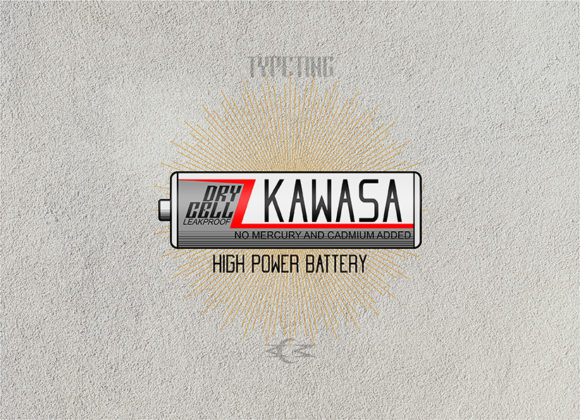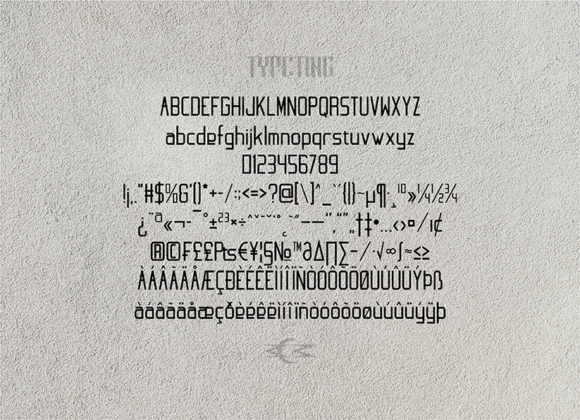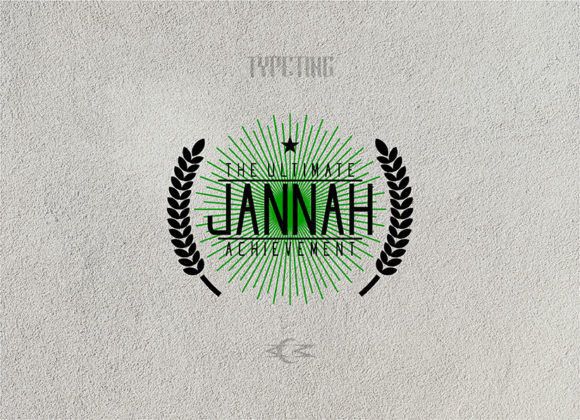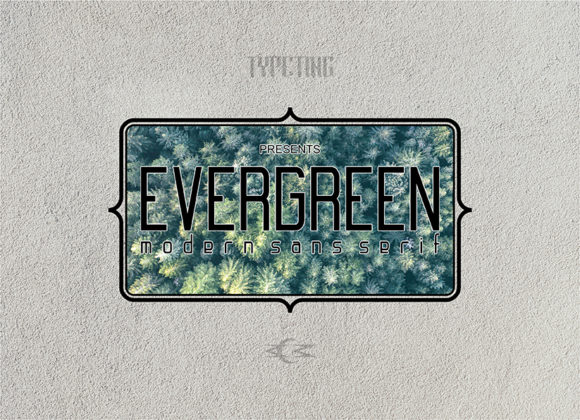
Introducing Evergreen Font: A Modern Sans Serif for Creative Projects
Are you on the hunt for a versatile font that can elevate your design projects? Look no further than Evergreen Font, a modern sans serif font with a simple yet sophisticated feel. This clean and elegant font is perfect for a wide range of applications, from branding and invitations to titles, books, advertising, magazines, and more.
What Makes Evergreen Font Stand Out?
Evergreen Font boasts a unique combination of modernity and simplicity, making it an excellent choice for designers and crafters seeking a font that can convey a sense of professionalism and style. Its sans serif design ensures that your text remains clear and legible, even at smaller font sizes.
Key Features of Evergreen Font
• Modern Sans Serif Design: Evergreen Font features a sleek and contemporary sans serif design that is perfect for projects that require a clean and minimalist aesthetic.
• Simple yet Elegant: The font’s simple design belies its elegance, making it suitable for high-end branding, luxury invitations, and other premium applications.
• High Versatility: Evergreen Font can be used for a wide range of projects, including branding, invitations, name cards, titles, books, advertising, magazines, and more.
• Excellent Legibility: The font’s clear and legible design ensures that your text remains easy to read, even at smaller font sizes.
Use Cases for Evergreen Font
Evergreen Font is an incredibly versatile font that can be used for various design projects. Here are some examples of how you can utilize this font:
• Branding: Create a professional and modern brand identity with Evergreen Font, perfect for logos, business cards, and letterheads.
• Invitations: Use Evergreen Font to create elegant and sophisticated invitations for weddings, parties, and other special events.
• Book Titles: Add a touch of modernity to your book titles with Evergreen Font, perfect for fiction, non-fiction, and children’s books.
• Advertising: Create eye-catching advertisements with Evergreen Font, suitable for print, digital, and social media campaigns.
• Magazines: Use Evergreen Font for magazine titles, headings, and body text to create a clean and modern layout.
Why Choose Evergreen Font?
With so many fonts available, why should you choose Evergreen Font for your design projects? Here are a few compelling reasons:
• Unique Design: Evergreen Font offers a unique and distinctive design that sets it apart from other sans serif fonts.
• High Quality: The font is crafted with attention to detail, ensuring that it is of high quality and suitable for professional design projects.
• Easy to Read: Evergreen Font is designed to be easy to read, making it perfect for body text and other applications where legibility is crucial.
Font Name Evergreen Font
Author Typeting Studio
Evergreen Font is an exceptional modern sans serif font that offers a perfect blend of simplicity, elegance, and versatility. Its clean design, excellent legibility, and wide range of use cases make it an excellent choice for designers and crafters seeking a reliable and stylish font for their projects. Whether you’re working on branding, invitations, book titles, advertising, or magazines, Evergreen Font is sure to become your go-to font for creating stunning designs.